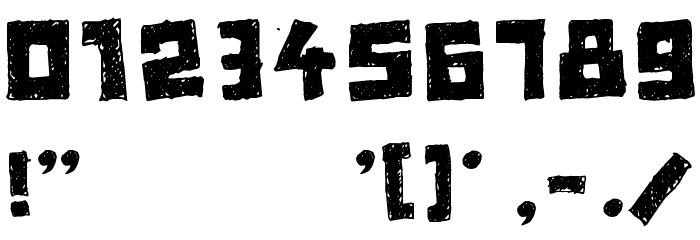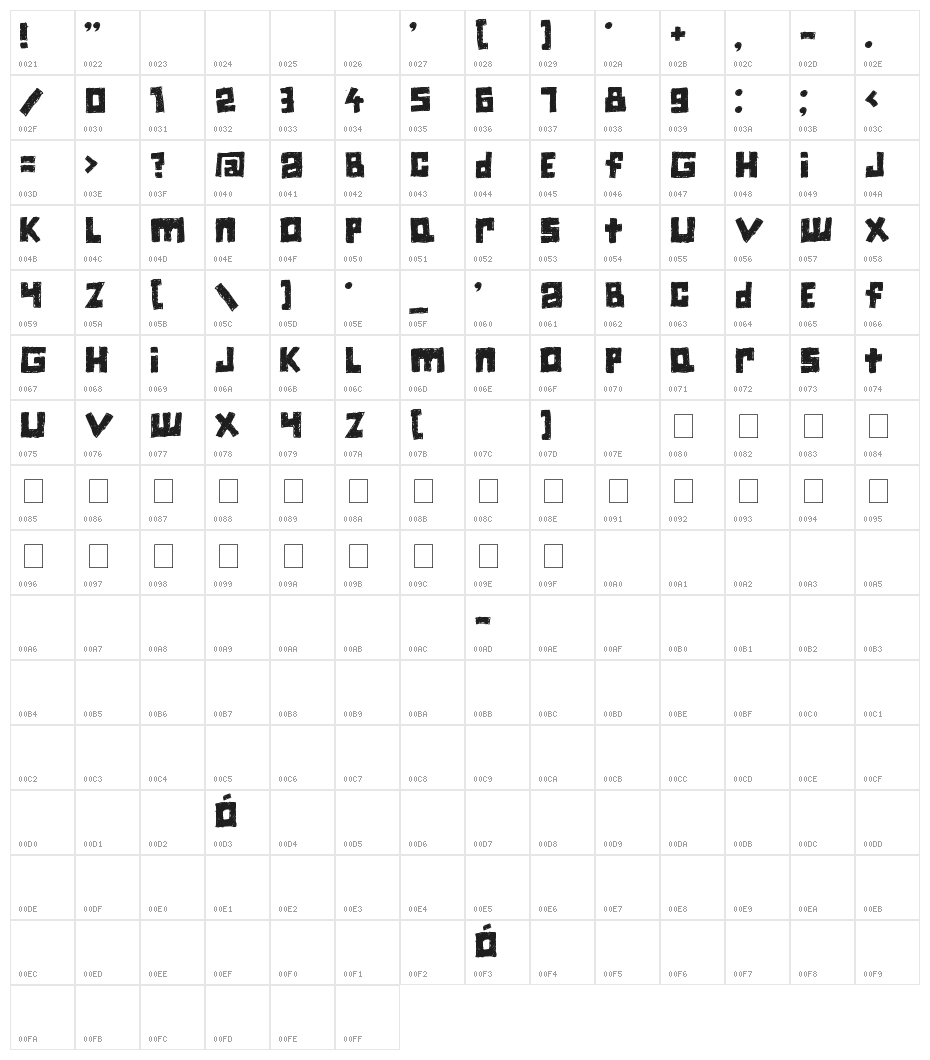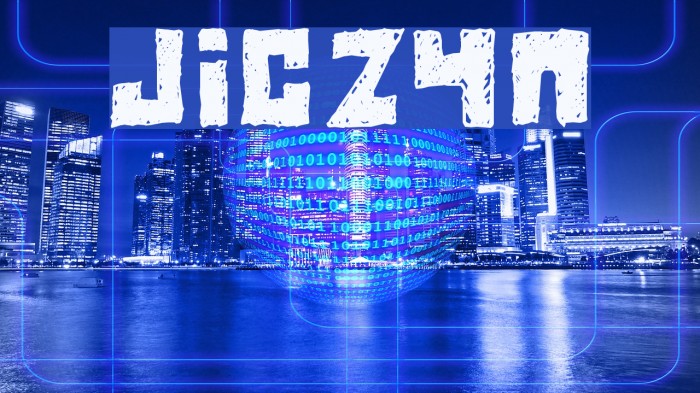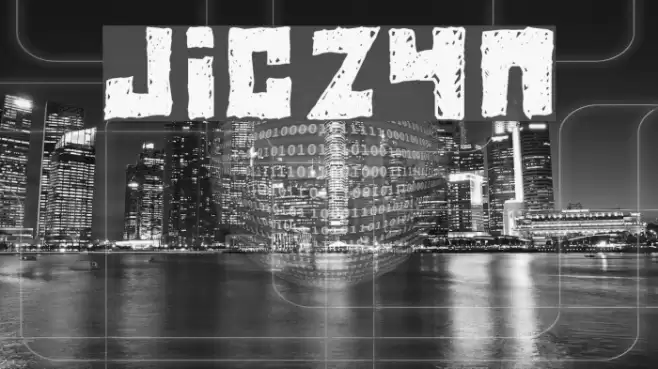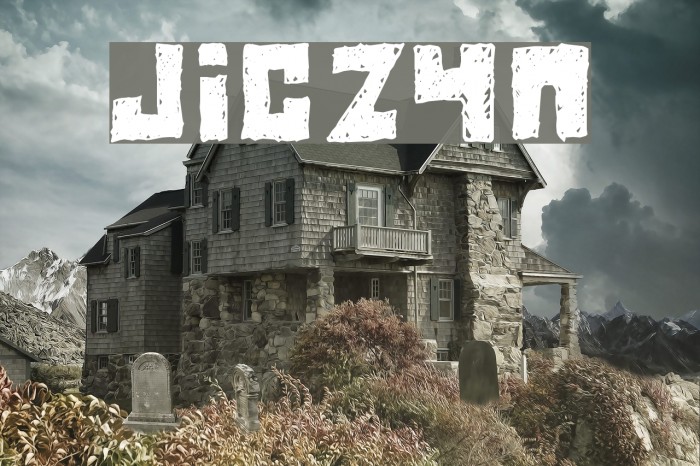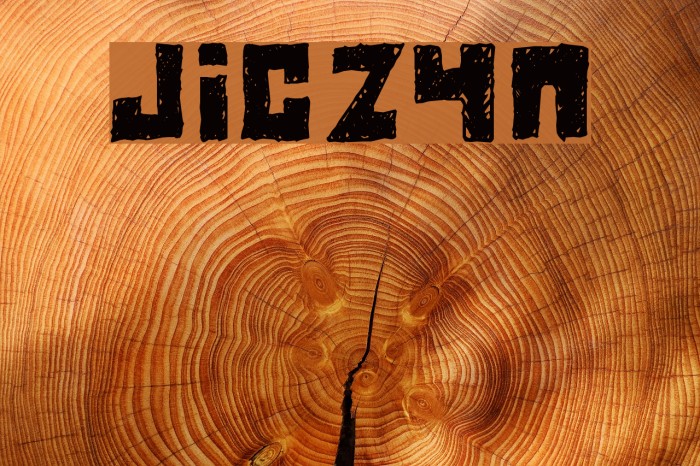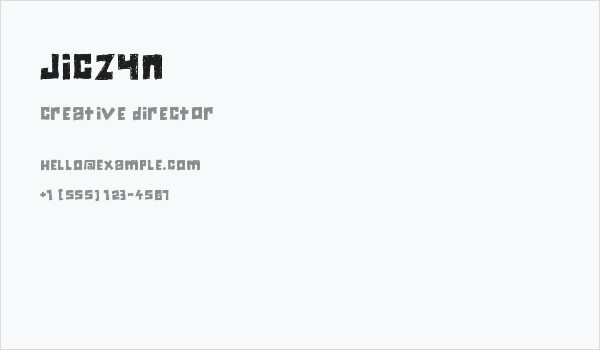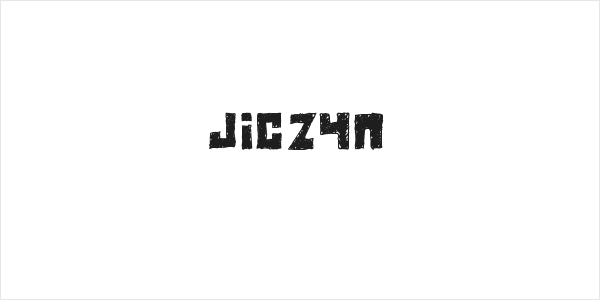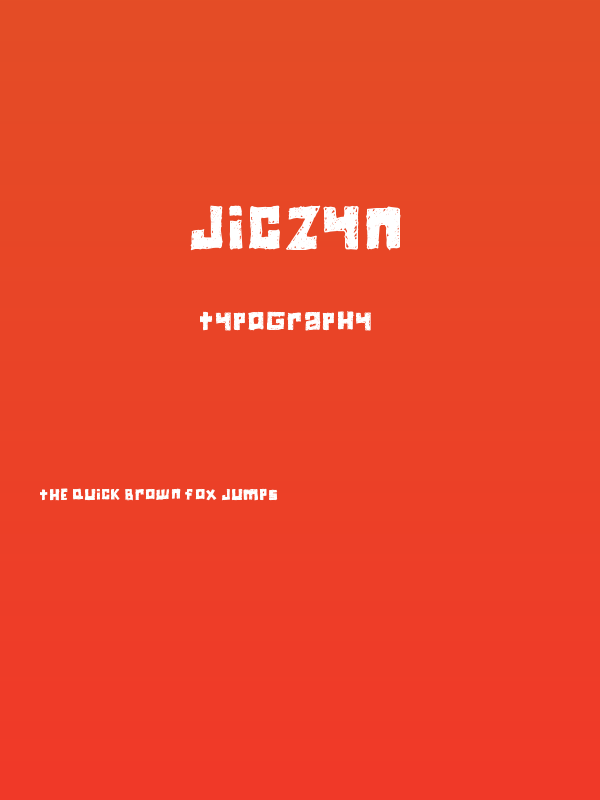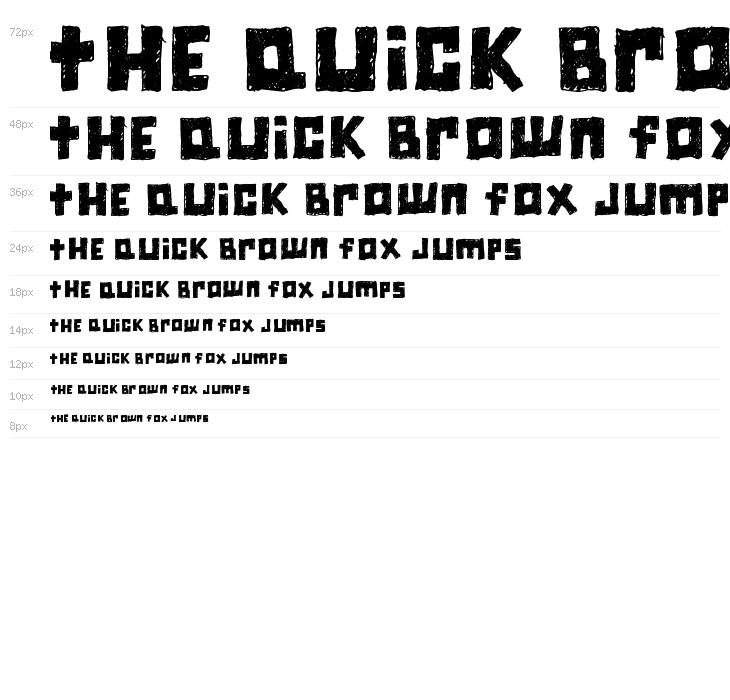
Jiczyn Font
Jiczyn Description
This font features a bold, textured style with a hand-crafted appearance. The characters are blocky and irregular, giving a rugged and organic feel. Each letter and number has a unique, distressed texture that adds depth and character. The font maintains a consistent weight throughout, with a slightly condensed width. The spacing between characters is relatively tight, enhancing its bold presence. The overall style is decorative and modern, making it suitable for projects that require a strong visual impact.
| Proposed Projects | Ideal for posters, album covers, branding, and any design requiring a bold, artistic touch. |